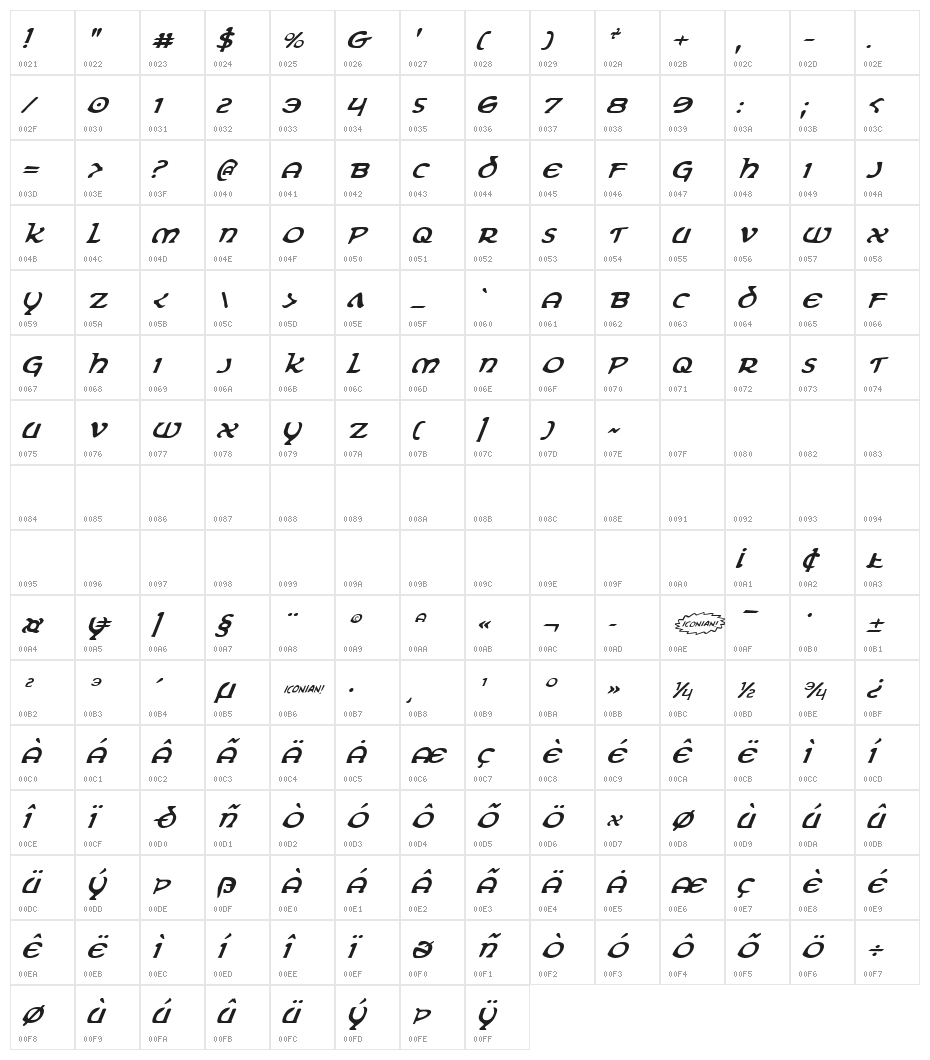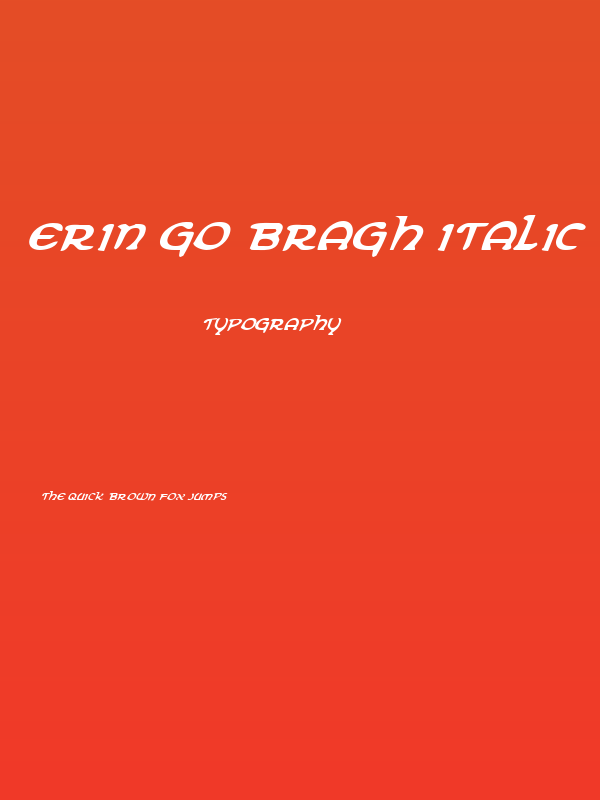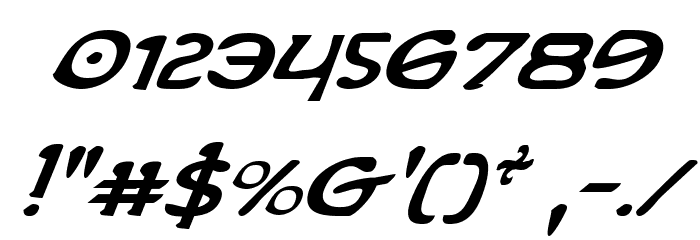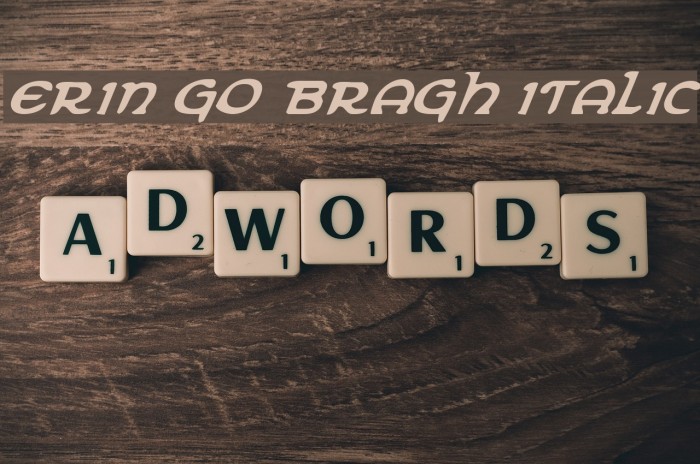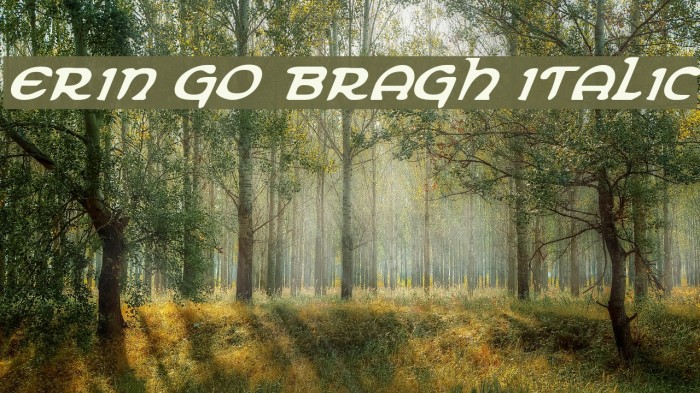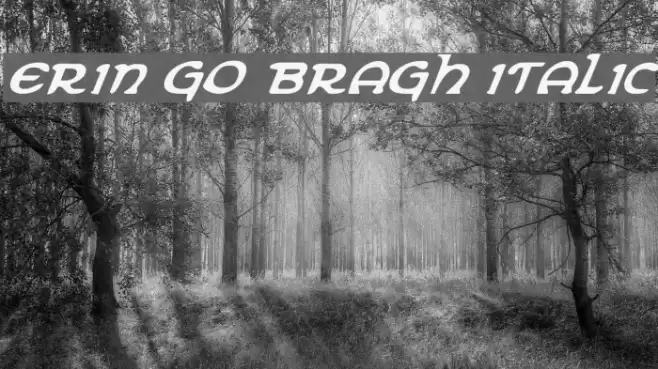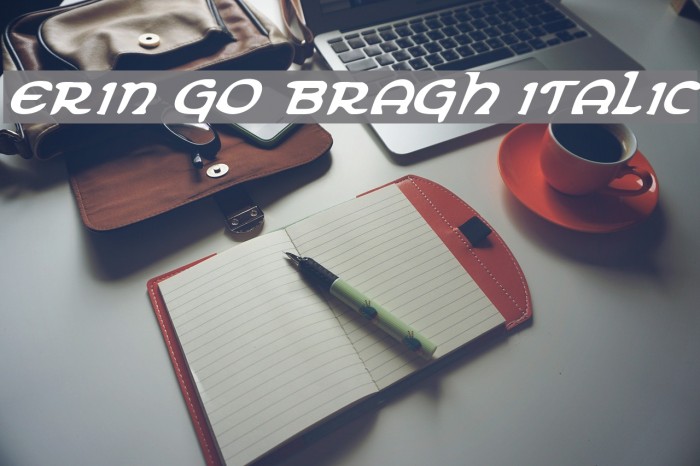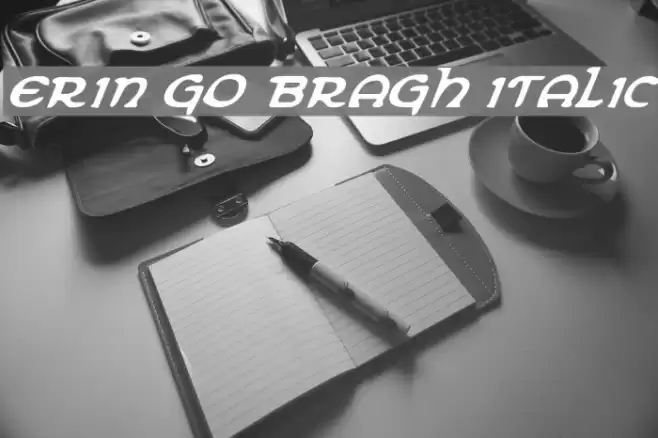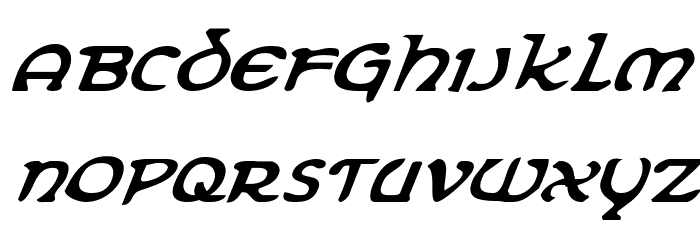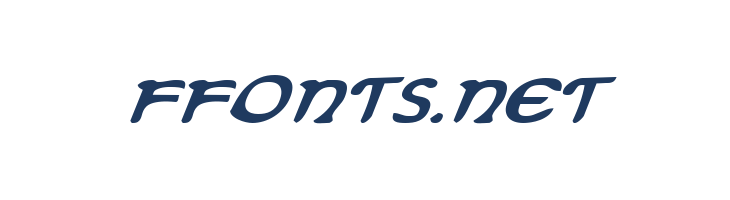
Erin Go Bragh Italic Font
Erin Go Bragh Italic Description
This font features a distinctive italic style with a flowing, cursive appearance. The characters are slightly slanted, giving a sense of movement and elegance. The strokes are bold and consistent, with a medium contrast between thick and thin lines. The overall design is reminiscent of traditional calligraphy, yet it maintains a modern touch. The uppercase letters are particularly ornate, with unique flourishes that add character and flair. The lowercase letters complement the uppercase with smooth curves and a cohesive style. Numbers and special characters are designed to match the overall aesthetic, ensuring a harmonious look across all text.
| Use Case | Headlines, Logos, Invitations |
| Proposed Projects | Ideal for invitations, greeting cards, branding projects, and decorative headlines. |